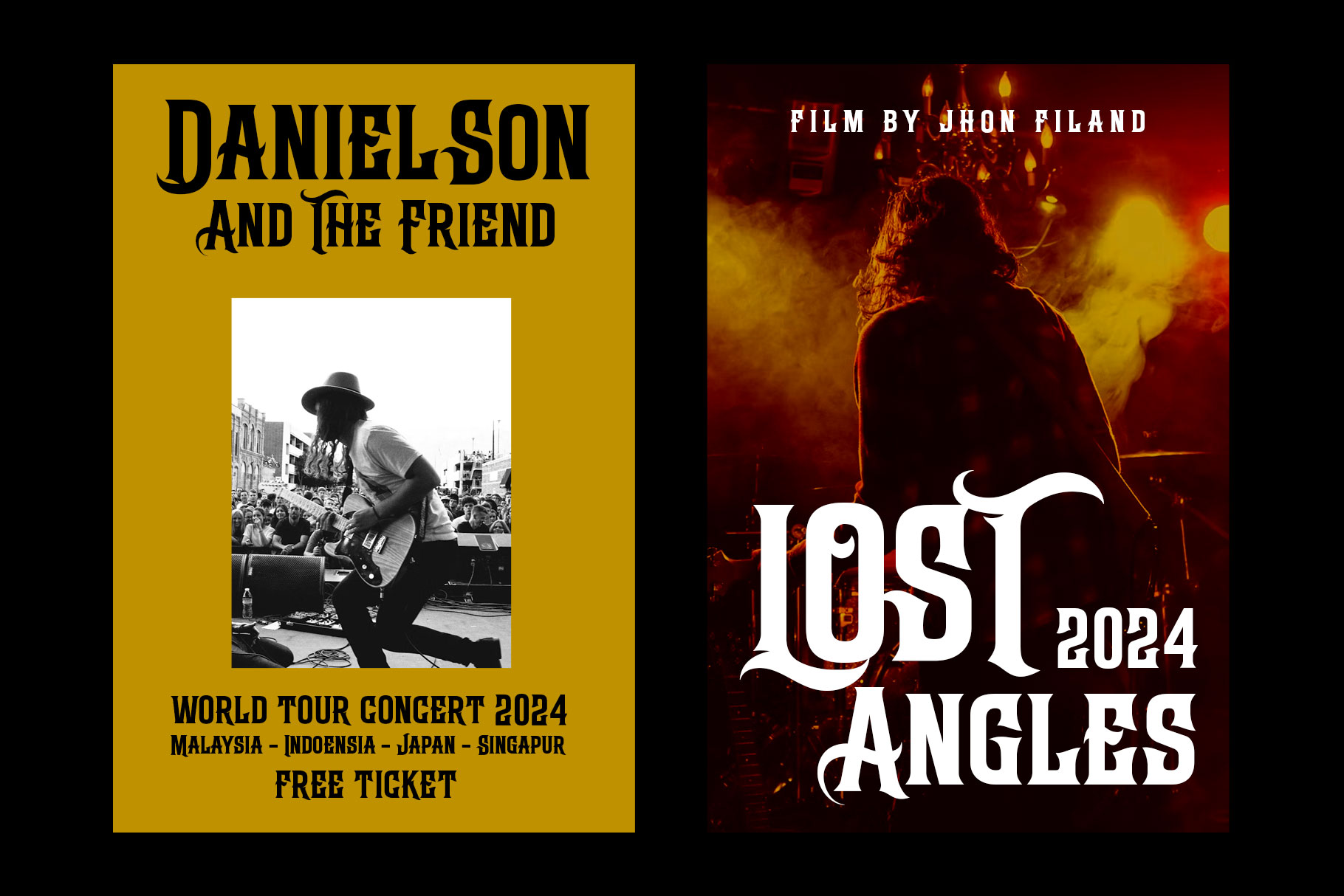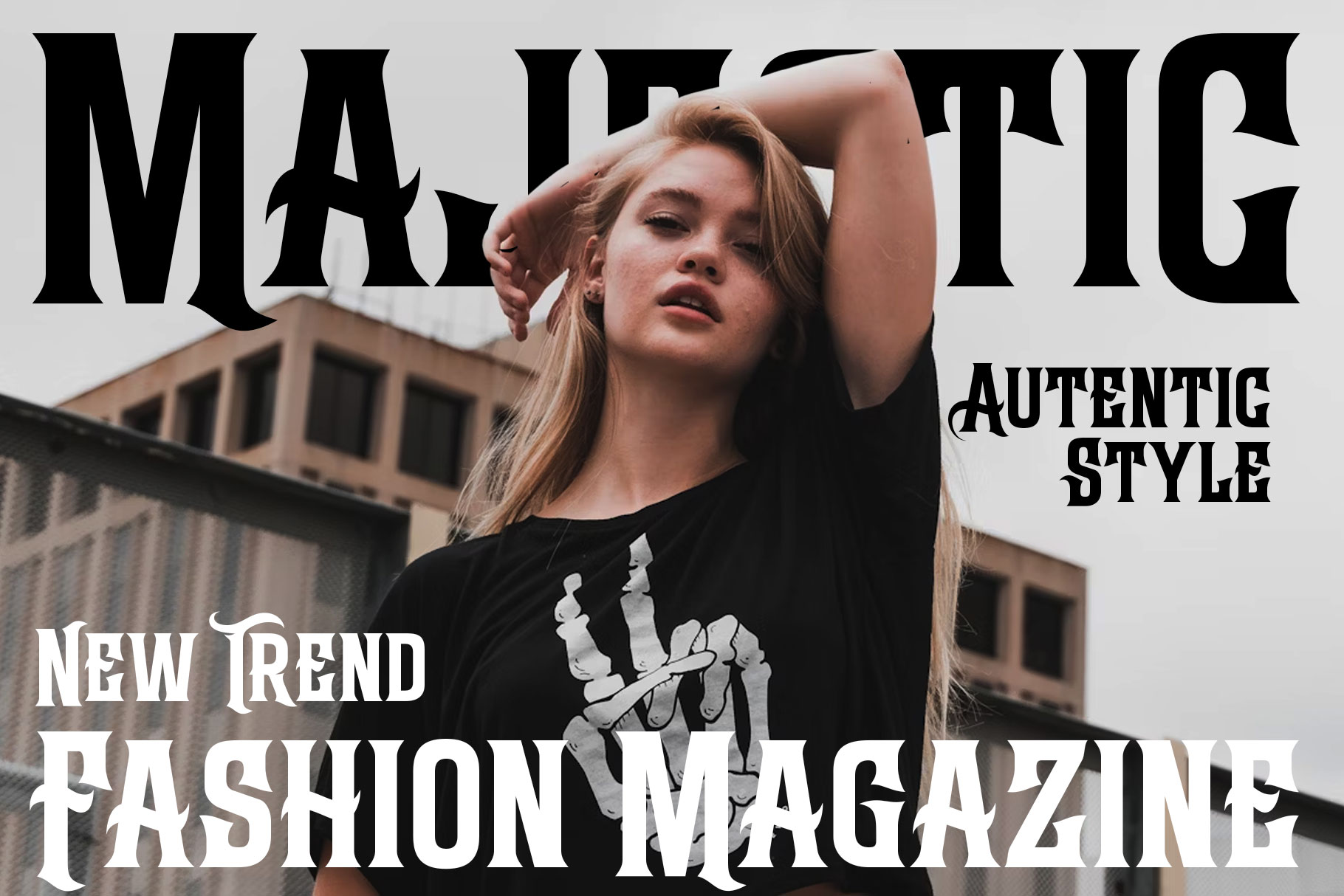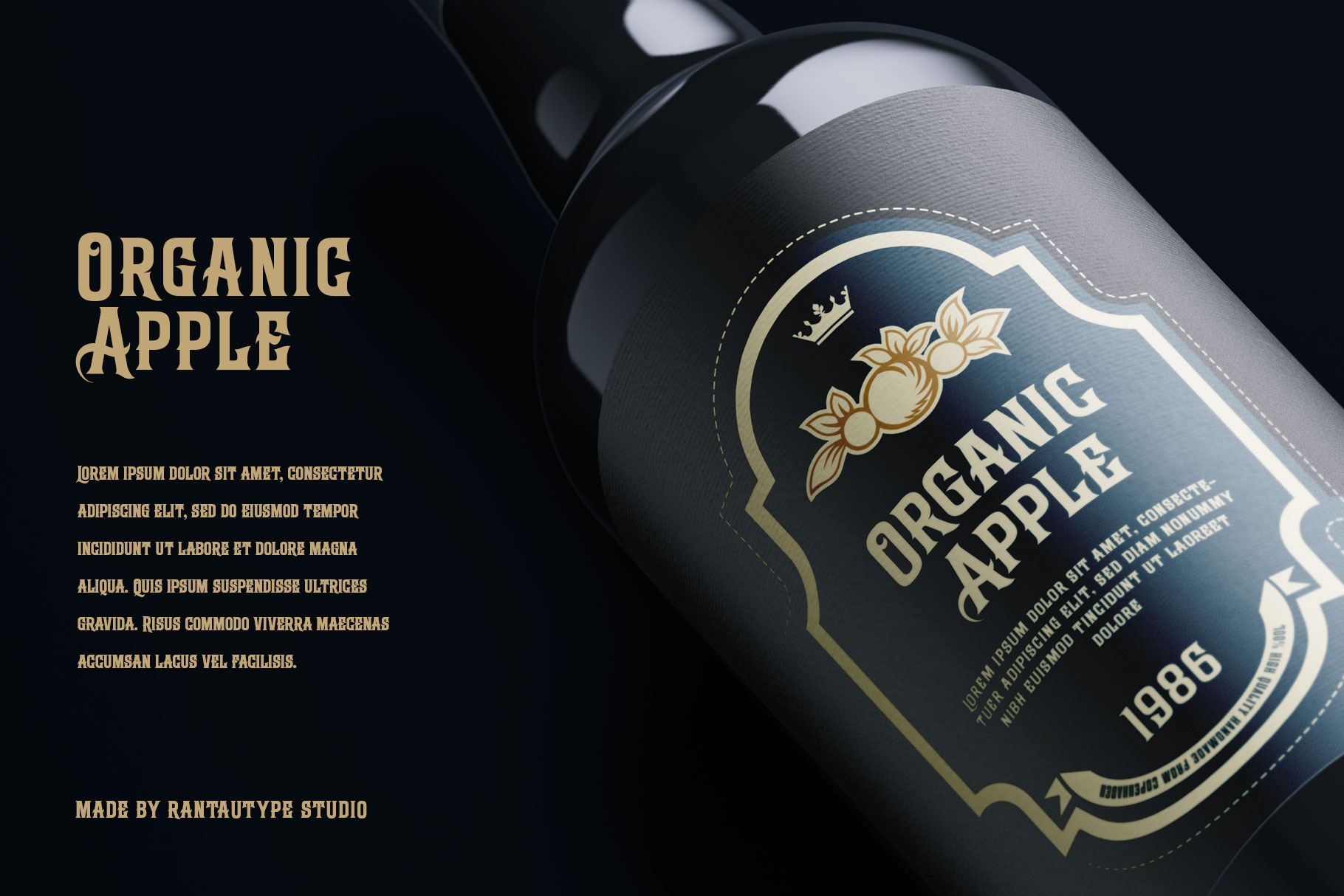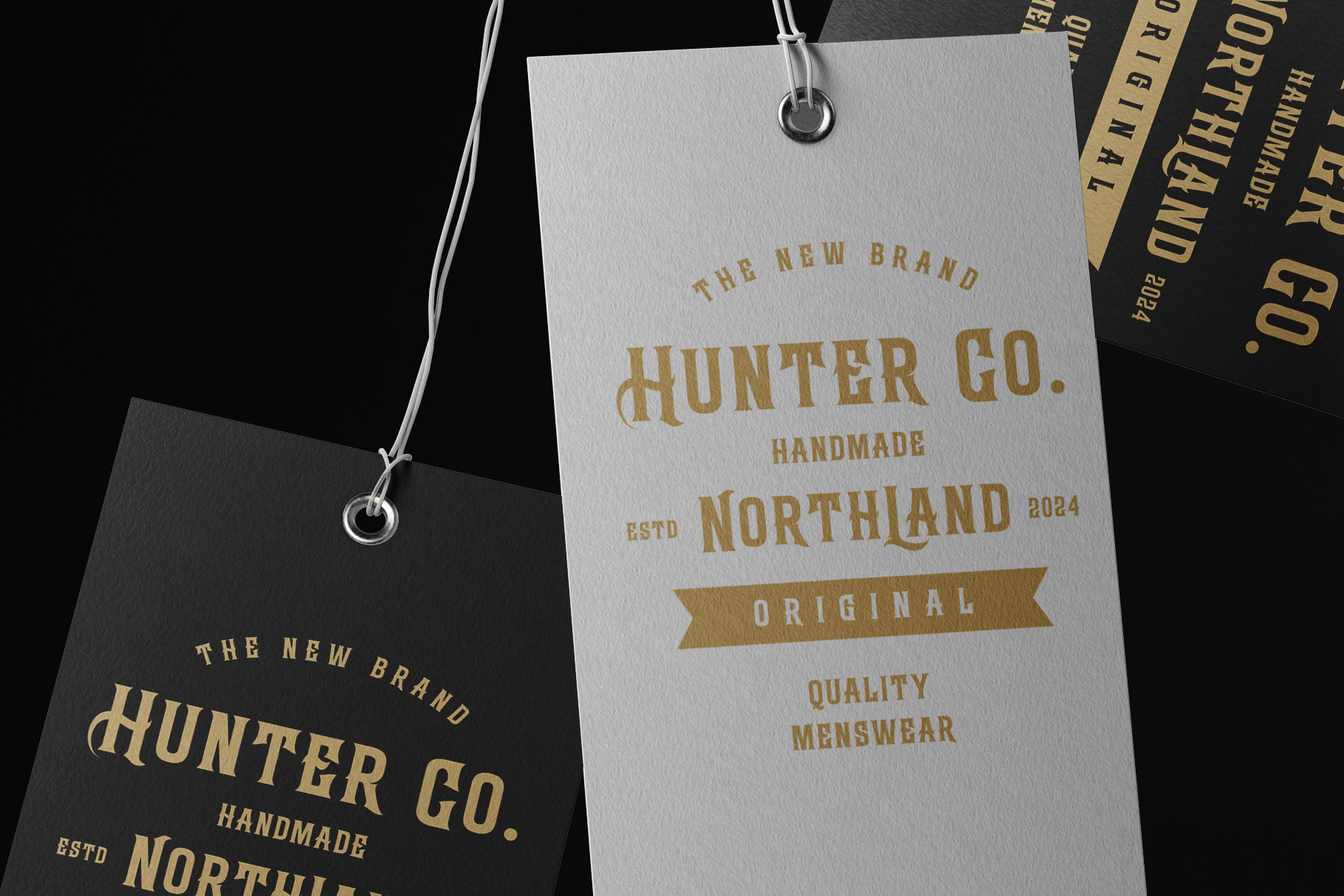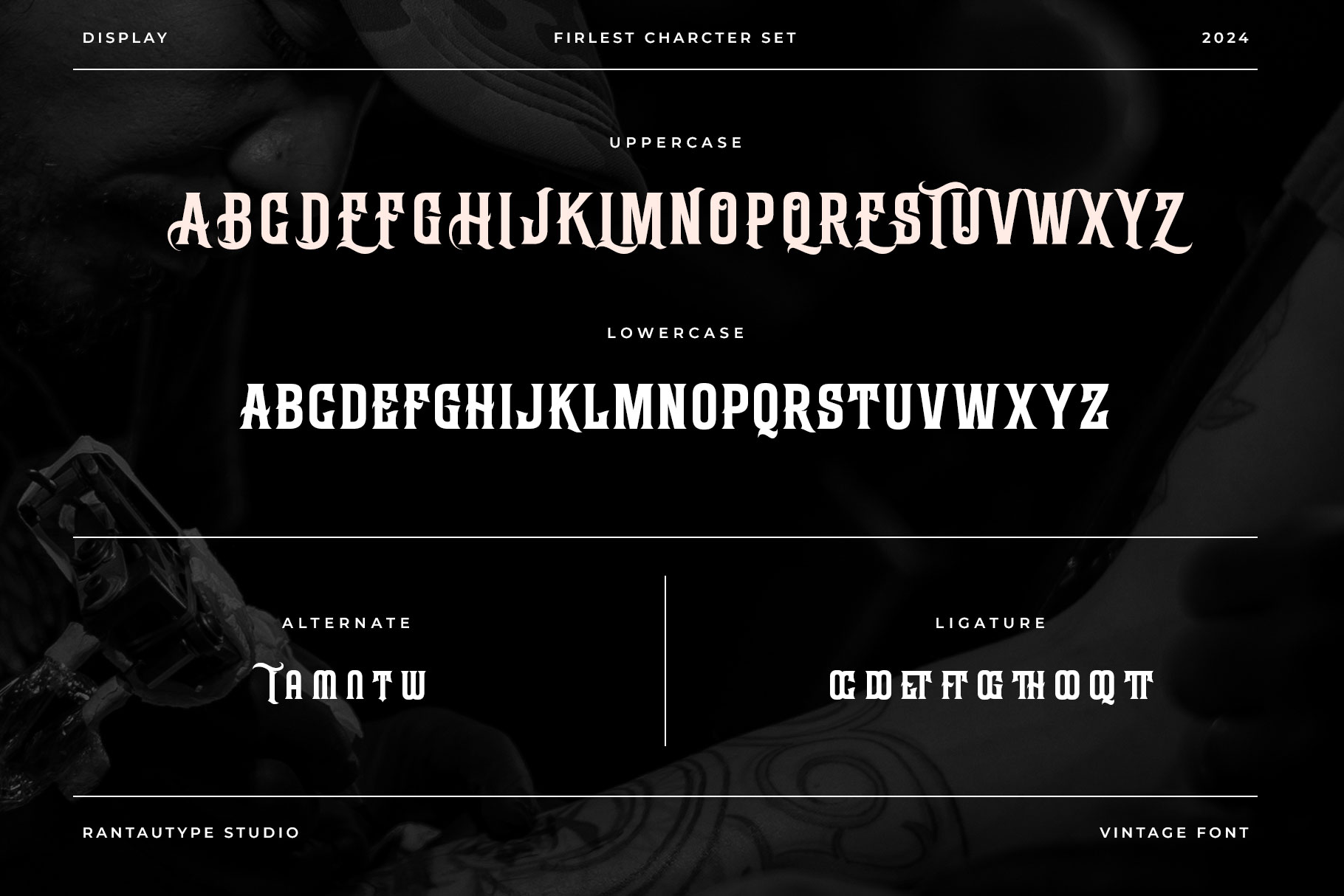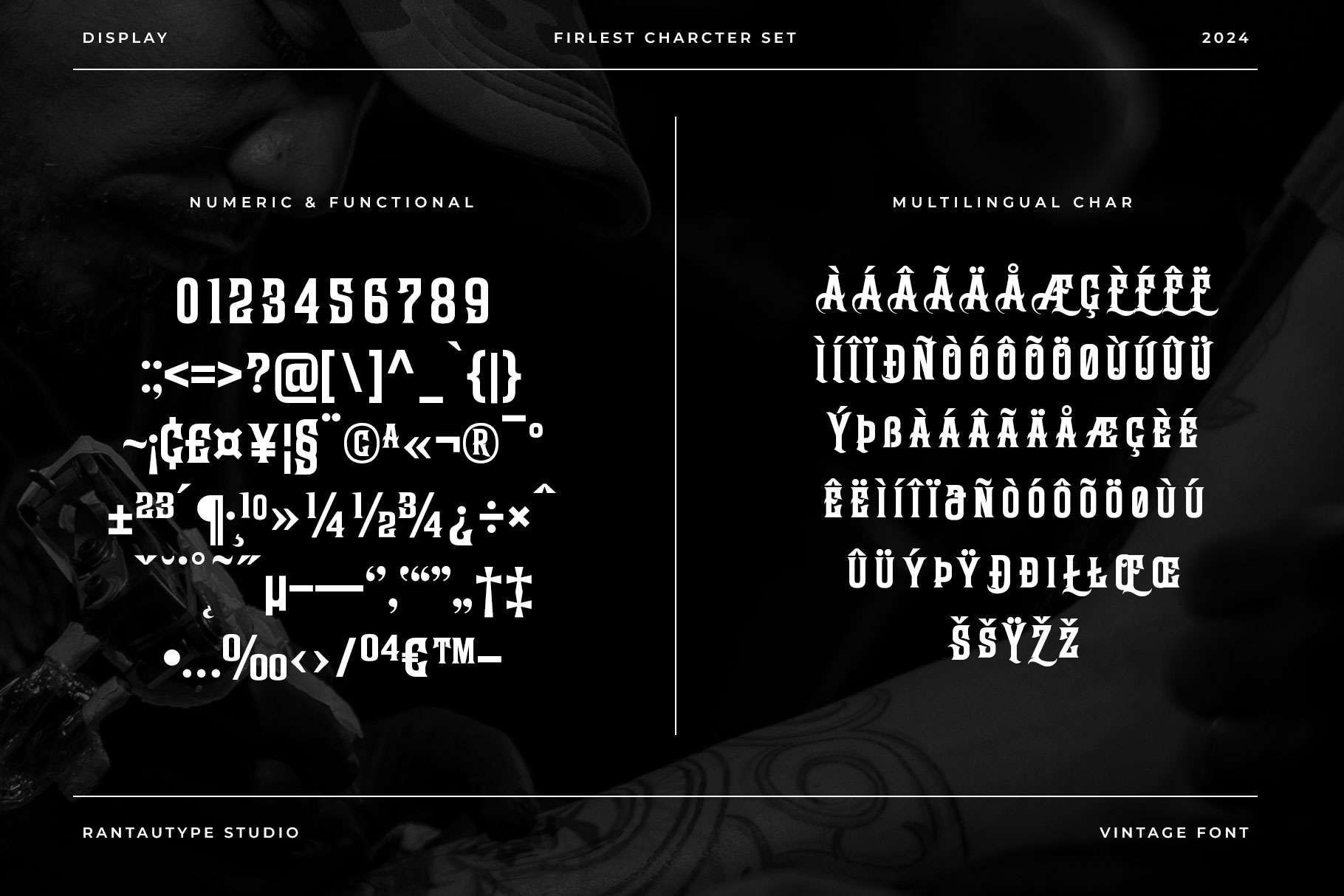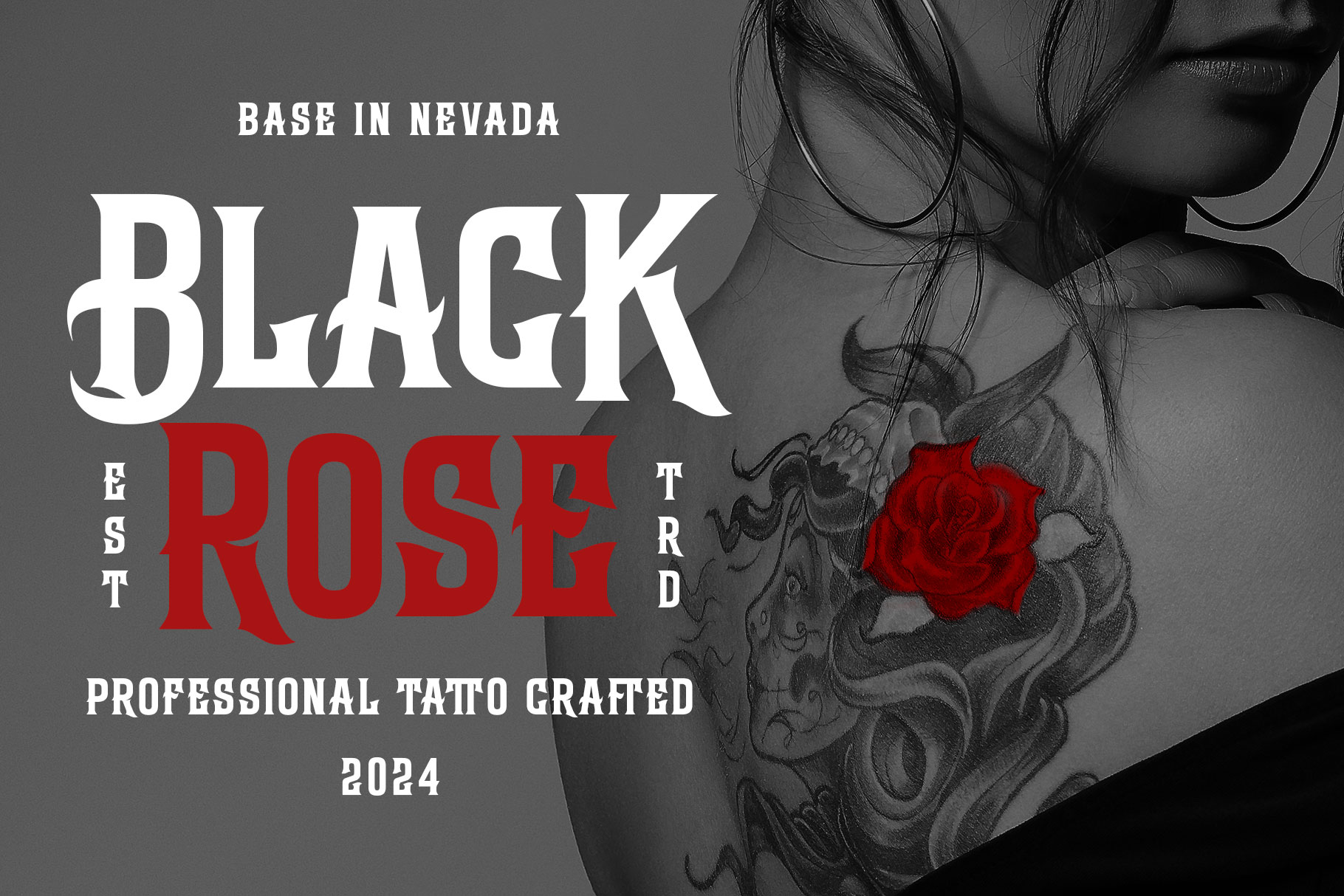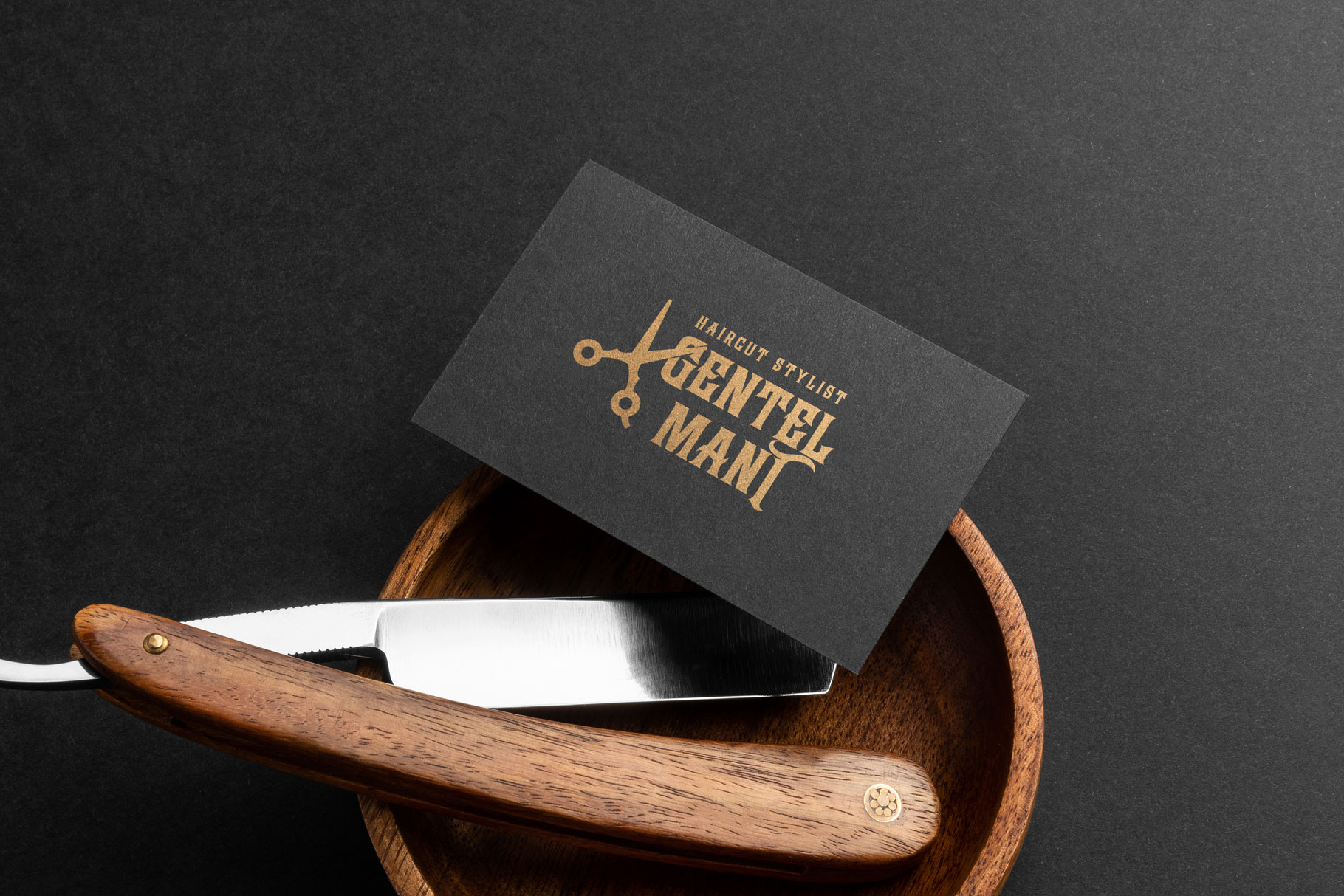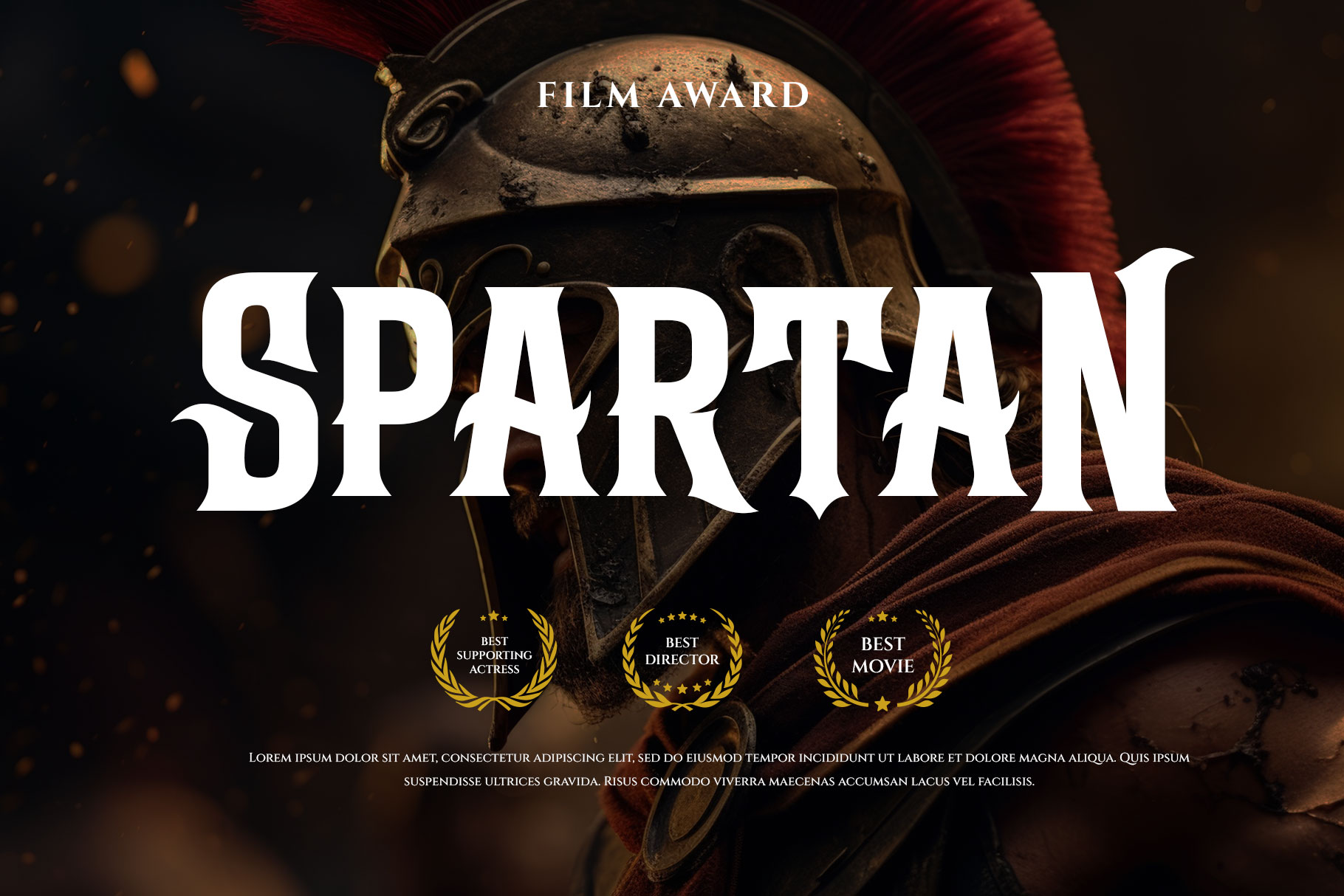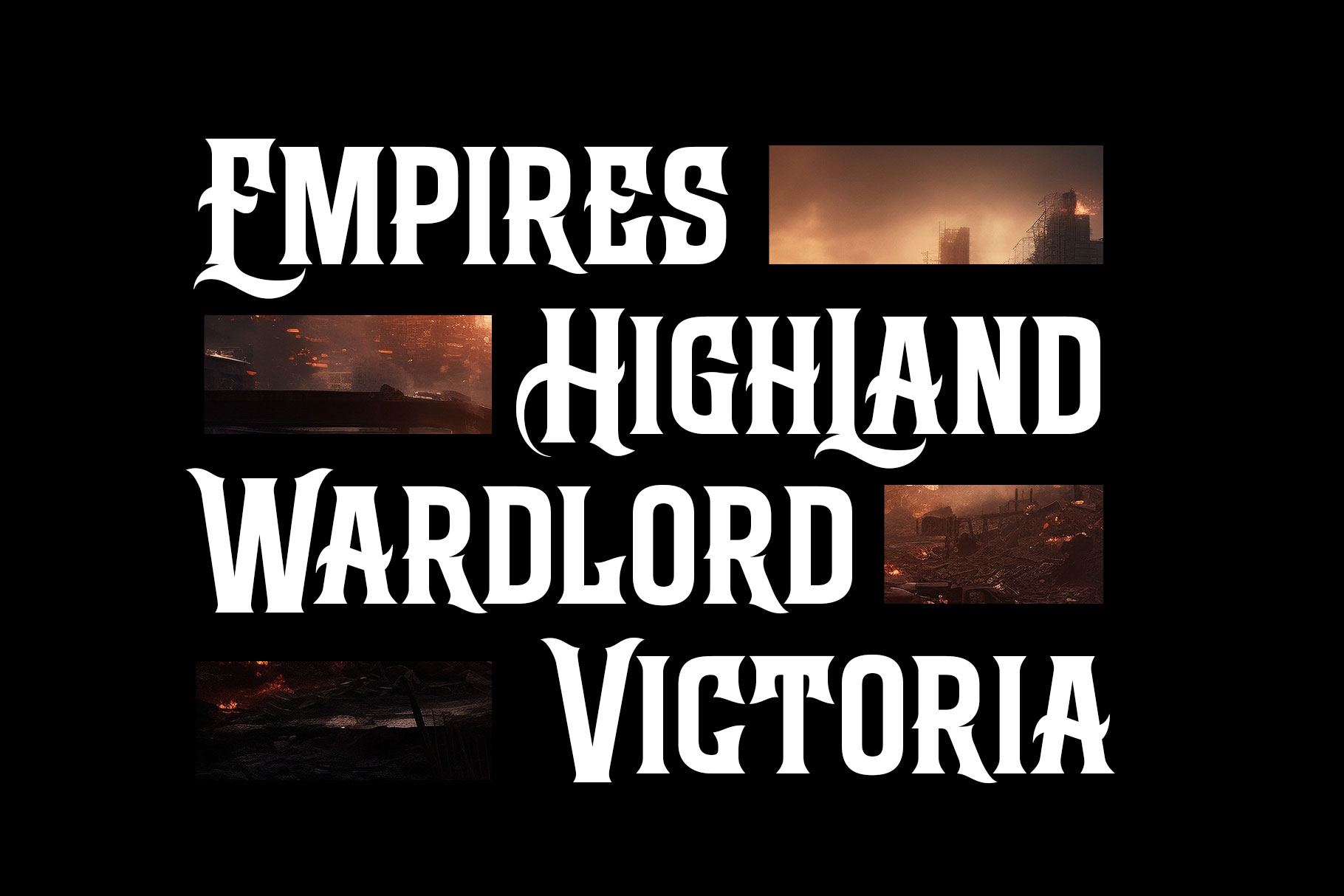
Firlest
Firlest is old vintage font inspire by culture of tatto and biker visual design. Firlest come with strong curve and artistic character make sense of elegance.
Firlest is a perfectly choice for any creative endeavor, chic, lifestyle design such as logos, advertisements, stationery, branding project, display and magazine, invitation, corporate brand, product design, label, business project and many other project with old vintage touch.